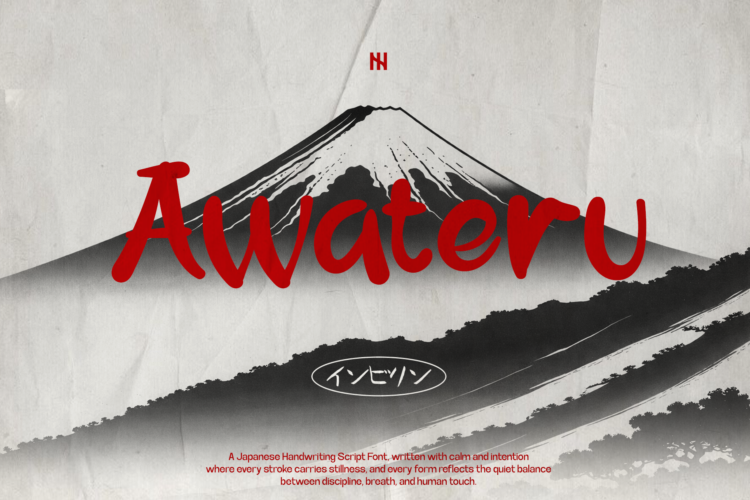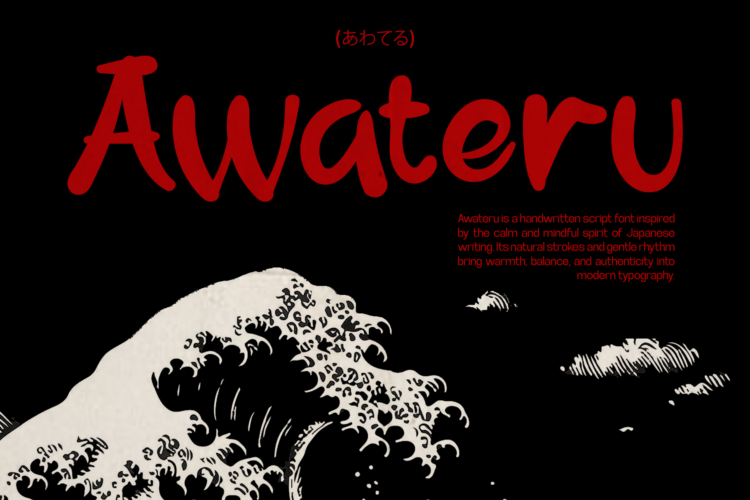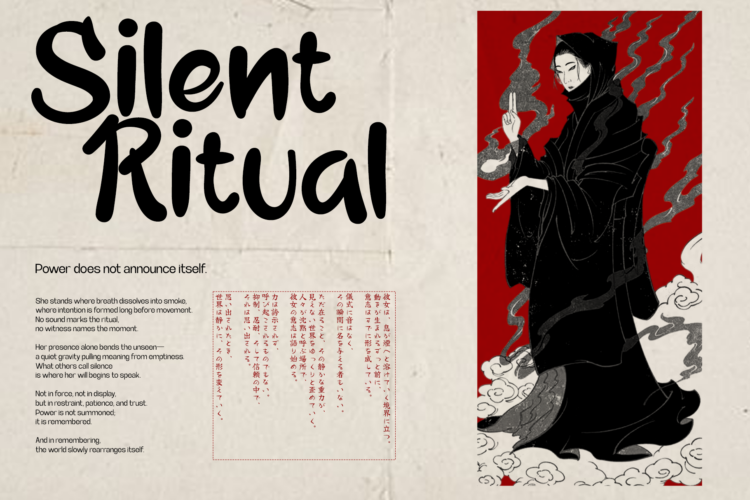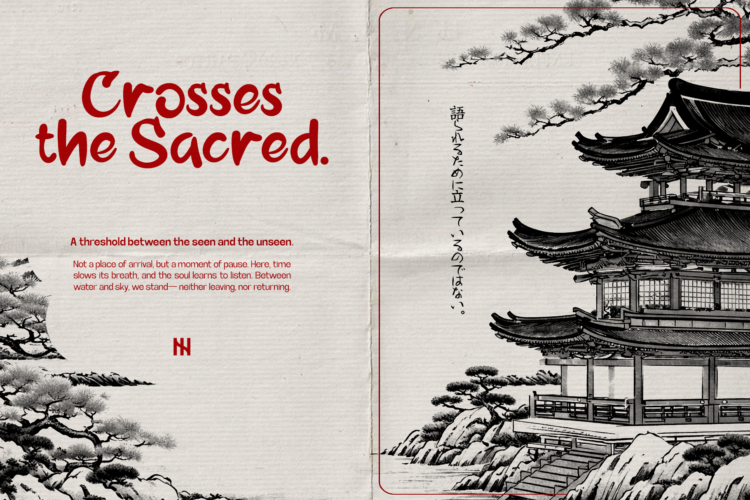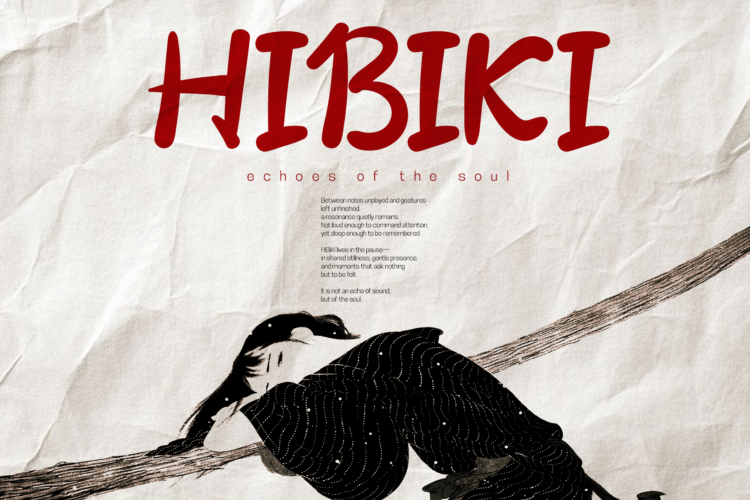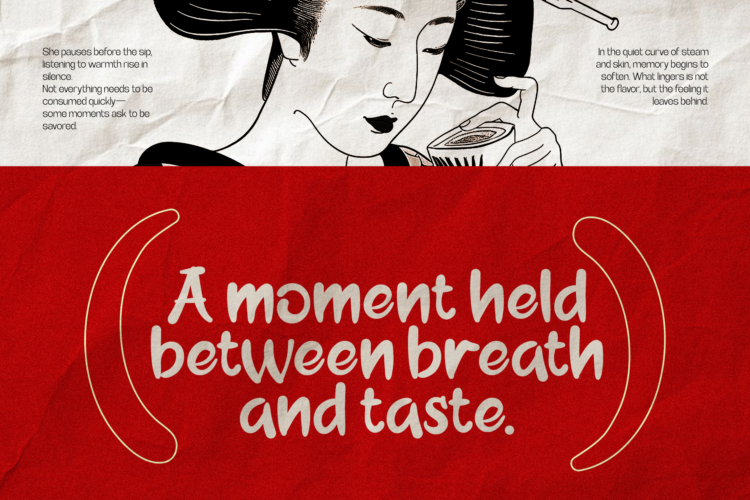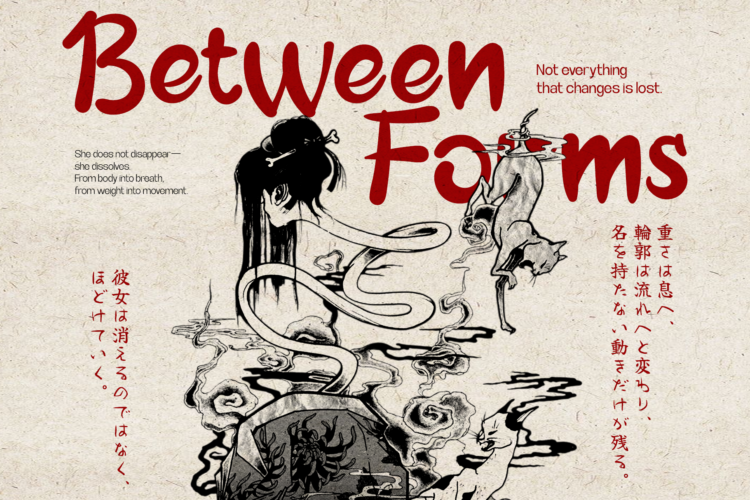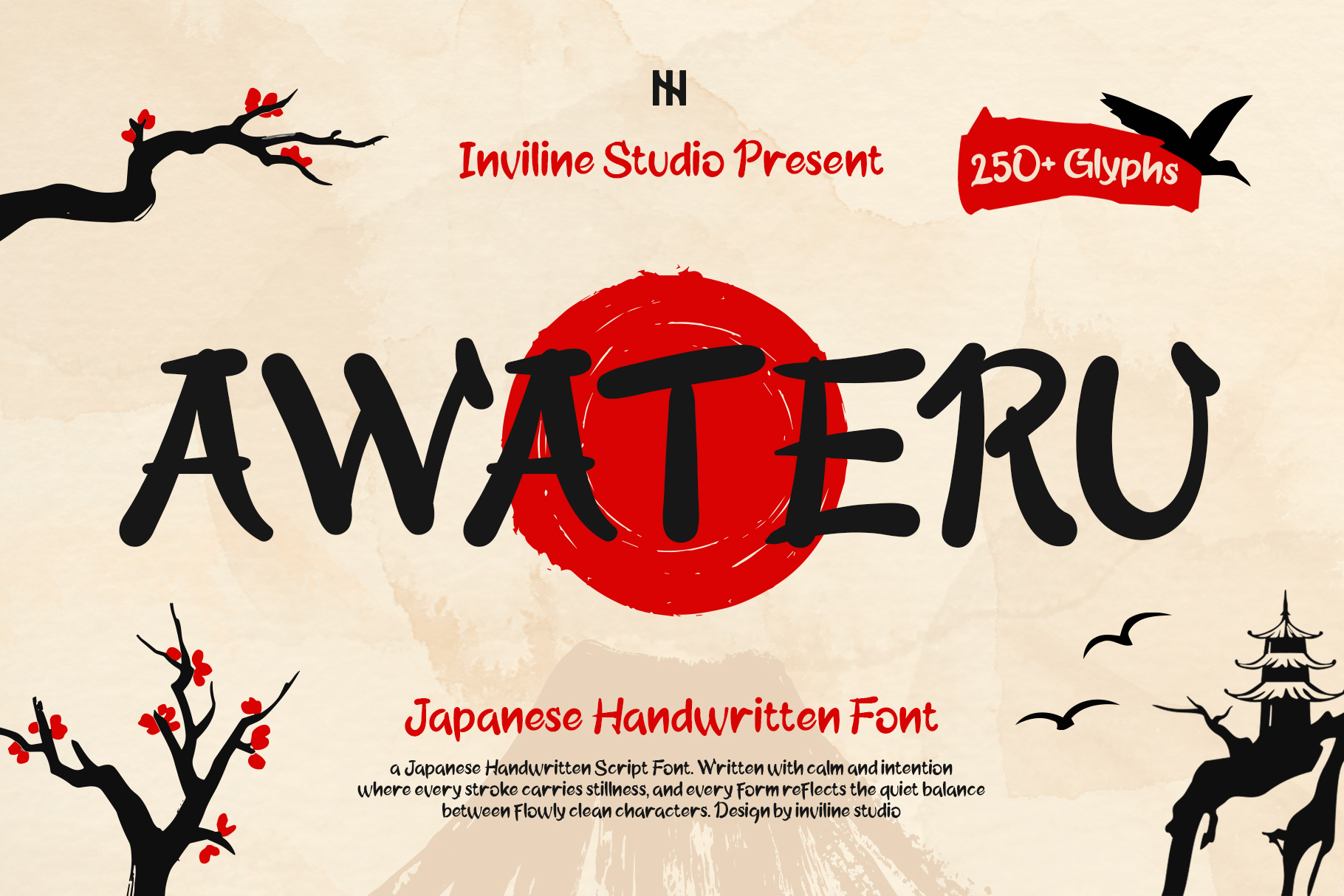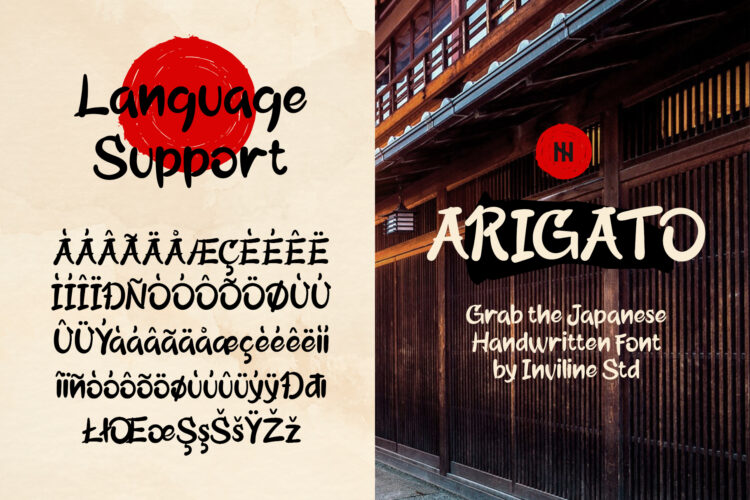
Awateru – Japanese Handwritten Font
Awateru is a Japanese-style handwritten font inspired by traditional calligraphy and poetic brush strokes. With its flowing curves and imperfect ink texture, Awateru brings a human touch to modern design. Ideal for projects that evoke calm, nostalgia, and cultural depth, this font blends minimalism with emotion—perfect for branding, packaging, lifestyle visuals, and editorial layouts seeking a peaceful and artistic Japanese aesthetic.
- Uppercase & lowercase letters
- Alternates & stylistic ligatures
- Multilingual support
- Organic brush strokes
- Inspired by Japanese handwriting
- Branding with cultural or spiritual tone
- Japanese-inspired packaging design
- Zen & wellness brand identities
- Poetry or journaling content
- Art exhibition posters
- Minimalist editorial layouts
- Social media quotes with depth
- Handmade product labels